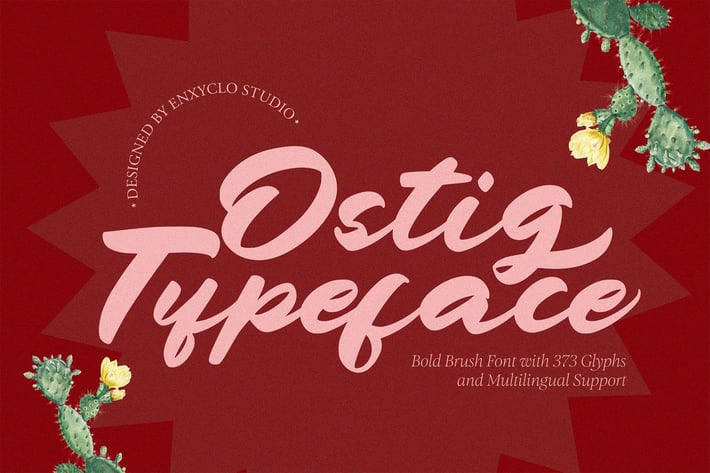
NCL Ostig - Bold Brush Script Font
NCL OSTIG is a bold brush display font. Masterfully designed to become a true favorite, this font has the potential to bring each of your creative ideas to the highest level! It was purposely crafted to be used in large point sizes, although it doesn’t lose its magic in small point sizes. It is perfect for headline, billboard, magazines, website, titles, poster, branding, and logos. No matter the topic, this font will be an incredible asset to your fonts’ library, as it has the potential to elevate any creation. With this beautiful font, absolutely you can make your project stand out from the rest.
Contains 373 Glyphs
Numeral, Punctuation & Symbols
Swash Variants
* Multilingual Support